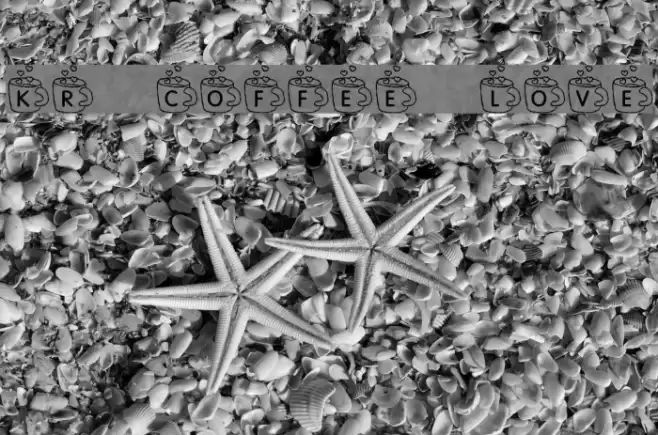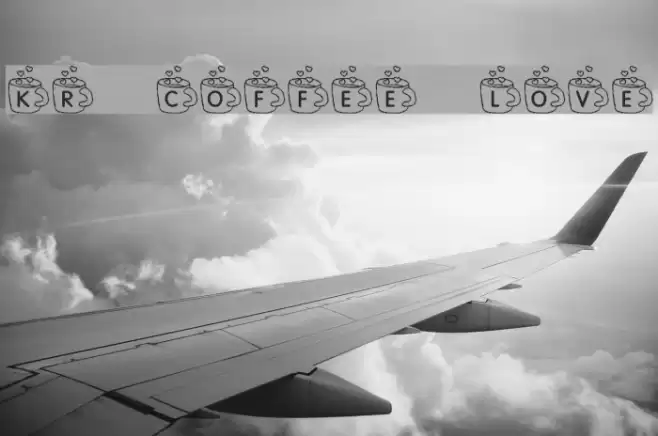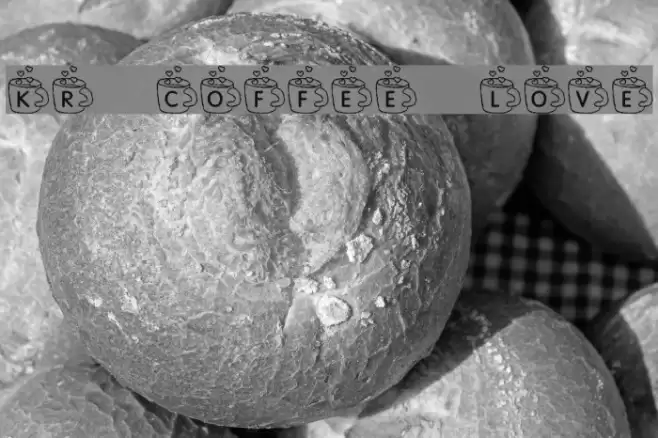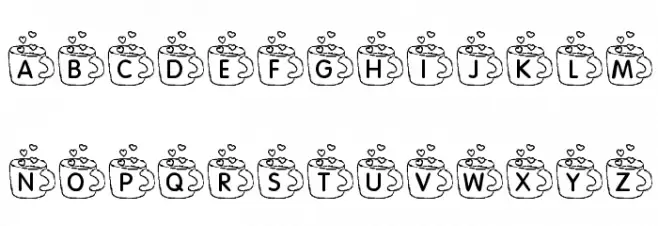
KR Coffee Love Font
KR Coffee Love Description
This playful and whimsical font features each character encased within a charming coffee cup illustration, complete with steam and heart motifs. The letters are bold and clear, making them easily legible despite the decorative elements. The design is consistent across both uppercase and lowercase letters, maintaining a cohesive look. The font's unique style is perfect for projects that aim to convey warmth, love, and a touch of fun. Its decorative nature makes it ideal for creative and informal applications.
A whimsical font with letters inside coffee cup illustrations, featuring heart and steam motifs from Uncategorized fonts.
- Proposed Projects: Ideal for greeting cards, cafe menus, coffee shop branding, and playful social media graphics.
- Overall Style: Playful, Whimsical
- Use Case: Logos, Headlines, Invitations